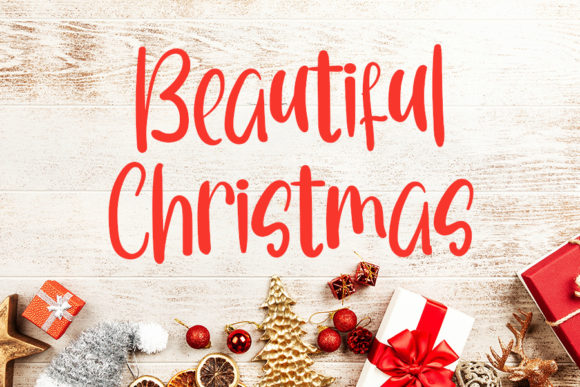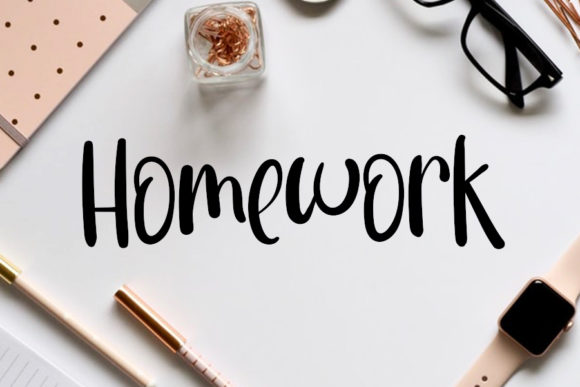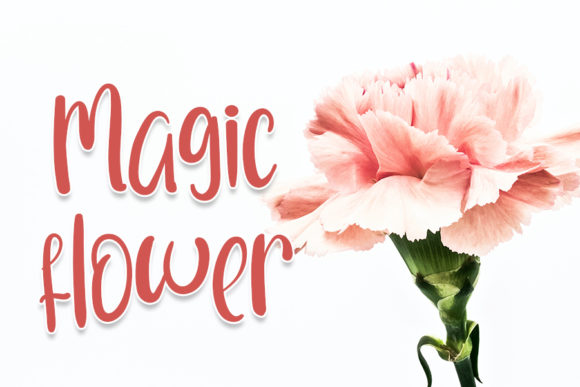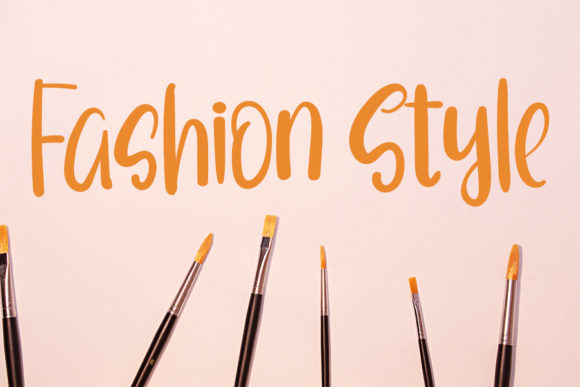
Introduction to Hello Tiara Font
Hello Tiara is a flowing and sweet handwritten font.
Fall in love with its trendy style and use it to create fun invitations, beautiful stationary art, eye-catching social media posts, and much more .
Key Features of Hello Tiara Font
Why Choose Hello Tiara Font?